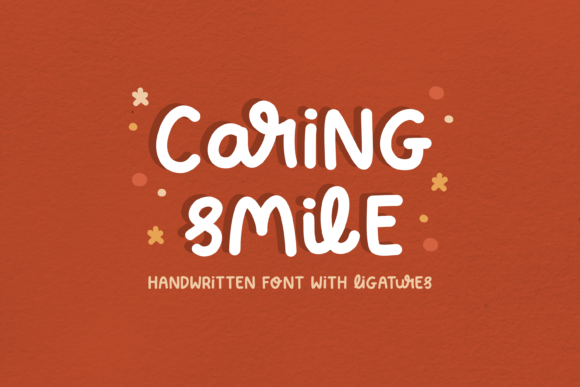
As a designer, there’s nothing quite like the thrill of finding that one font that perfectly captures the essence of your project. And that’s exactly what Caring Smile does. With its unique ligatures and playful charm, this font is sure to delight designers, crafters, and creative hobbyists alike.
What Makes Caring Smile Special?
The Caring Smile font is a true gem, and here’s why:
- ✨ Unique Ligatures: What sets Caring Smile apart is its beautiful ligatures – those special connections between letters that make the font feel like handwriting.
- ✅ Playful Charm: This font has a whimsical quality that’s perfect for projects that need a touch of cuteness and personality.
- 💫 Versatility: Whether you’re designing vibrant posters, inspiring printed quotes, or captivating digital designs, Caring Smile is up to the task.
- ✨ The font’s consistency in style and quality – every letter and ligature feels carefully crafted.
- ✅ The wide range of applications – from playful kids’ projects to more sophisticated designs.
- 💫 The emotional connection it helps create – designs feel friendly and approachable.
While Caring Smile is an amazing font, there are a few things to keep in mind:
- ⚠️ Ligature Limitations: Some combinations of letters might not connect as beautifully as others.
- 🤔 Legibility at Small Sizes: Like many handwritten fonts, Caring Smile can get a bit tricky to read at very small sizes.
The Story Behind Caring Smile
Caring Smile was designed with the intention of creating a font that feels both personal and approachable. Imagine a friendly conversation, handwritten notes, and the warmth of a genuine smile – that’s what inspired this beautiful font.
Q: What makes Caring Smile unique?
A: Caring Smile stands out with its unique ligatures and playful charm, making it perfect for projects that need a touch of whimsy.
Q: Is Caring Smile difficult to read at small sizes?
A: Like many handwritten fonts, Caring Smile can be a bit challenging to read at very small sizes. It’s best used at larger sizes where its details can shine.